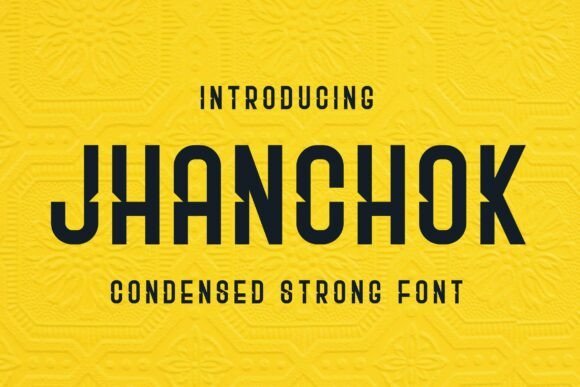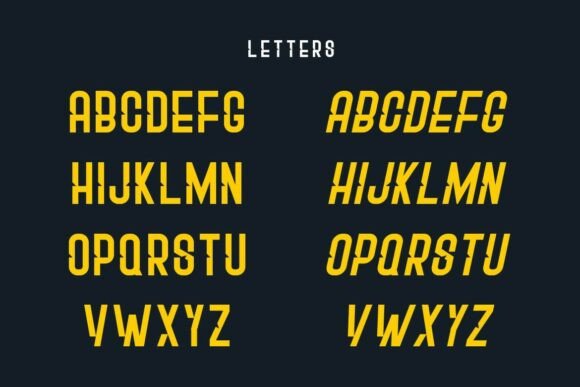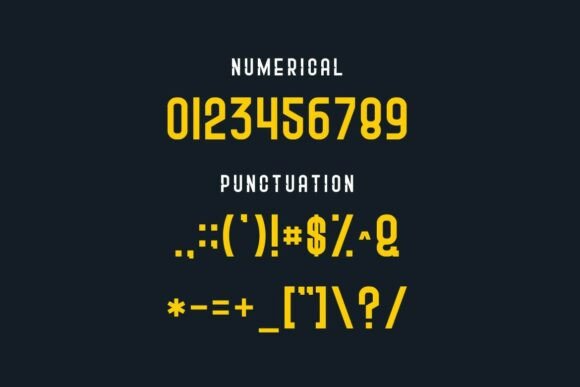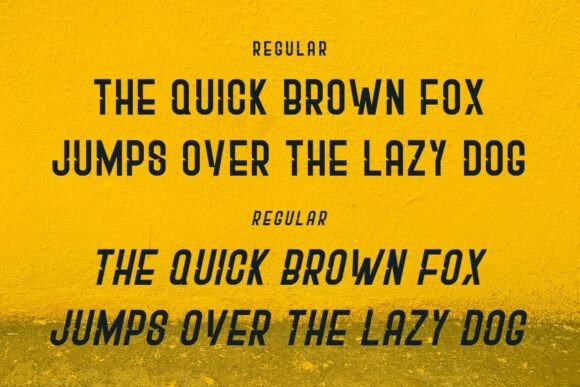
Breaking the Mold with Jhanchok Font
Have you ever stared at a blank page, waiting for the perfect font to bring your creative vision to life? That’s where the magic happens – when you find the one that speaks your language. For designers who crave something bold and unconventional, the Jhanchok Font is about to become your new best friend.
This daring sans serif font shatters the rules with confidence, merging geometric structure with unexpected forms to create a truly unique visual identity. Whether you’re crafting a brand, designing an editorial layout, or pushing the boundaries of experimental graphics, Jhanchok Font is the perfect partner in crime. Its versatility makes it an invaluable asset for creatives who dare to be different.
- Font Family: Jhanchok is a Nepali font designed to support the Devanagari script.
- Unique Characteristics: Jhanchok font is designed to be highly legible and aesthetically pleasing, making it suitable for various applications such as books, magazines, and digital media.
- Language Support: The font supports the Nepali language, making it an ideal choice for publications and documents written in Nepali.
Jhanchok Font Review
I recently had the chance to work with the Jhanchok font, and I must say it’s an interesting choice. Here are my thoughts:
- ✨ Unique character set: Jhanchok offers a distinct set of characters that can add a touch of Nepalese culture to your designs.
- ✨ Versatility: This font can be used for a variety of purposes, from body text to headings and titles.
- ✨ Legibility: Jhanchok is relatively easy to read, making it a suitable choice for longer texts.
- ⚠️ Limited font sizes: Jhanchok may not be the best choice for very large or very small font sizes, as the characters can become distorted.
- ⚠️ Limited language support: While Jhanchok includes a unique set of characters, it may not support all languages or character sets.
Overall, Jhanchok is a unique and versatile font that can add a touch of cultural flair to your designs. However, its limitations should be taken into consideration when choosing the font for your project. With some careful planning and selection, Jhanchok can be a great addition to your design toolkit.
Tips for Getting the Most Out of Jhanchok Font
Use Jhanchok Font to add a touch of Nepali culture to your designs. This font is perfect for creating traditional Nepali-inspired graphics, such as invitations, posters, and business cards.
Experiment with different font sizes, colors, and styles to create a unique and eye-catching design.
Jhanchok Font is commonly used for:
- Traditional Nepali-inspired graphics
- Invitations and event materials
- Business cards and stationery
- Cultural and educational materials